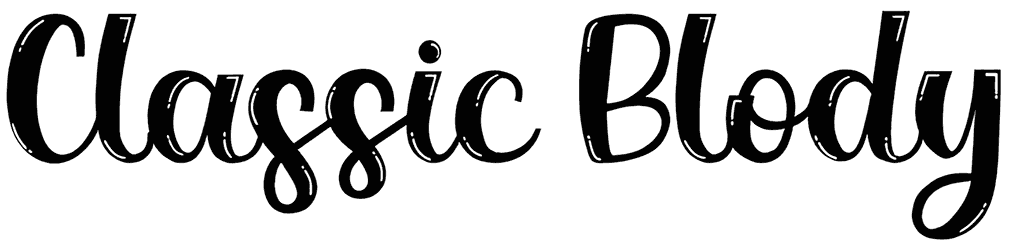
Classic Blody Font
Your design would be fresher and funnier with a playful face like Classic Blody. This handwritten font has a smooth and refreshing mood and consists of all A-Z characters, which means you can work with it in many short or long texts. Classic Blody can delightfully illustrate your coming designs, for instance, flyers, foregrounds, postcards, and whatnot.